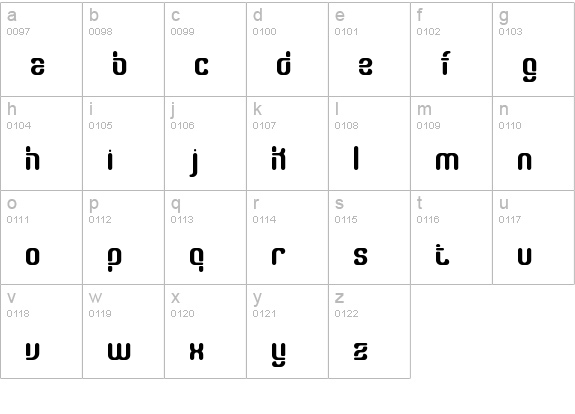
Gather Gapped BRK Font Details
Gather Gapped BRK font is a modern and stylish typeface that is perfect for a variety of design projects. With its unique gapped design, this font adds a touch of creativity and sophistication to any text or headline. The sleek lines and bold characters make Gather Gapped BRK font stand out and grab the attention of your audience. What makes Gather Gapped BRK font even better is that it is completely free to download. You can easily access this striking font at FontsMarket.com and enhance your designs with its contemporary flair. Whether you are working on a logo, poster, website, or any other creative project, Gather Gapped BRK font is sure to make a statement and elevate your design to the next level. Download this free font today and start adding a touch of modern elegance to your visual creations.